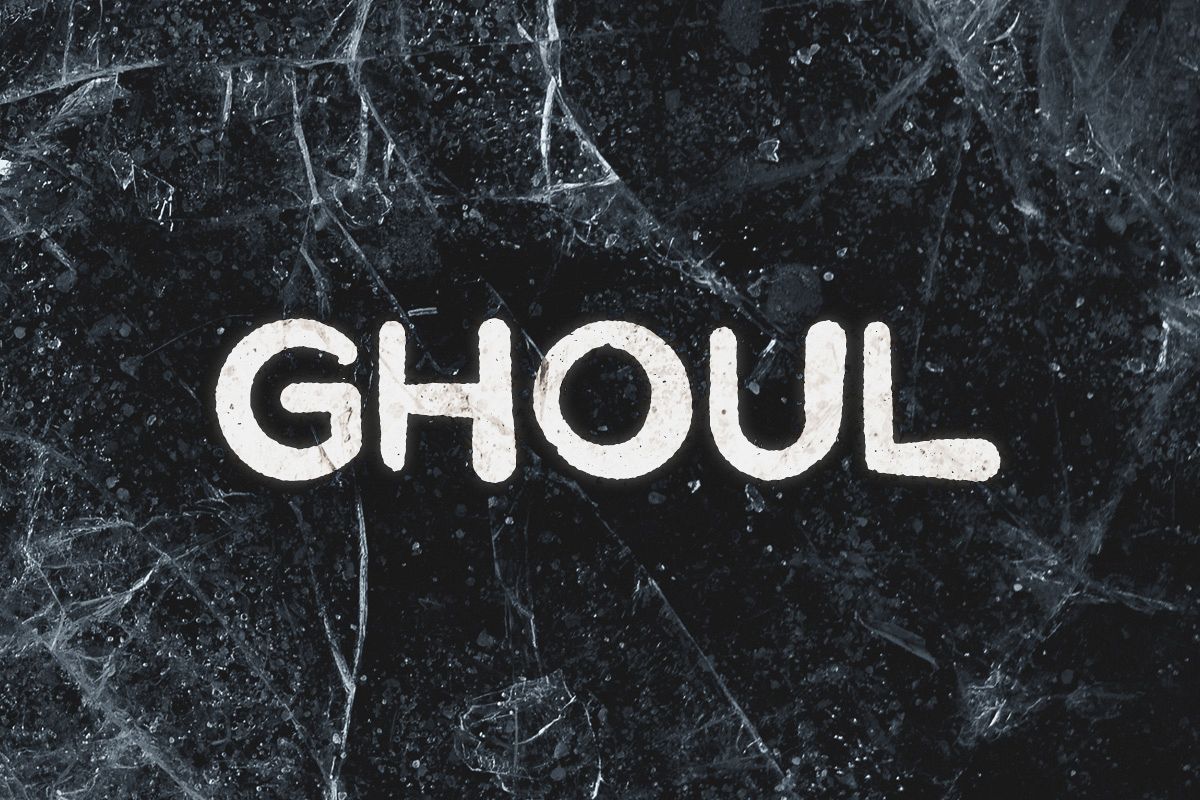
Ghoul Typeface
Ghoul
Ghoul is a horror themed brush font that's awesome for scary and bold titles. It includes uppercase multilingual letters, punctuation and numbers.